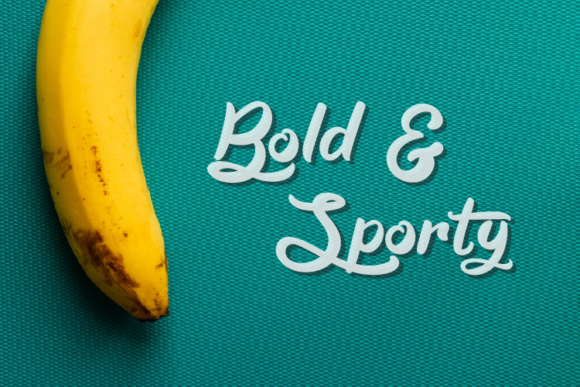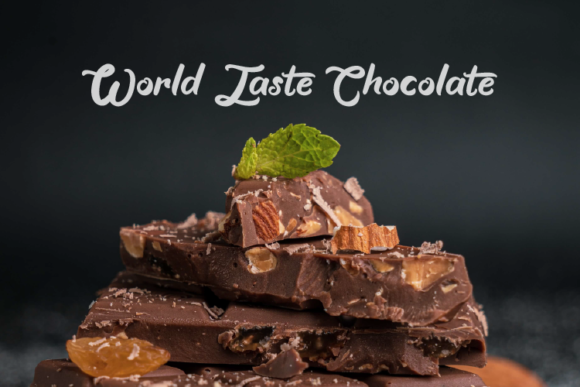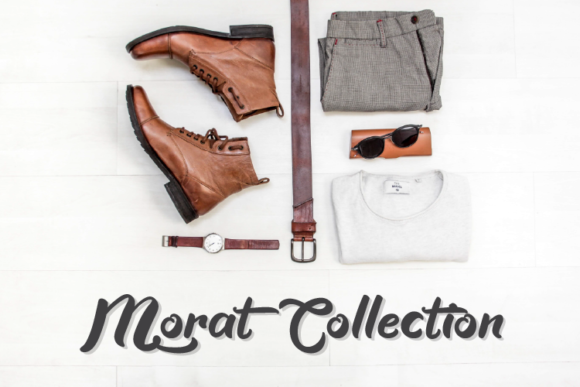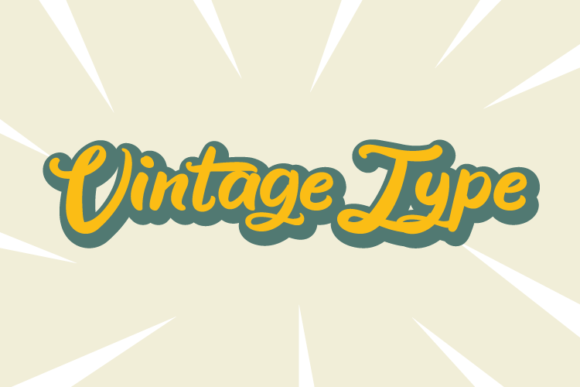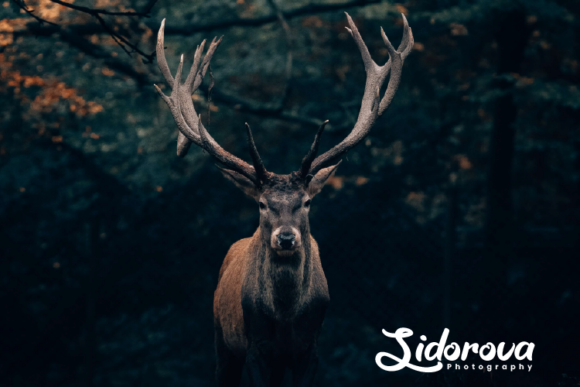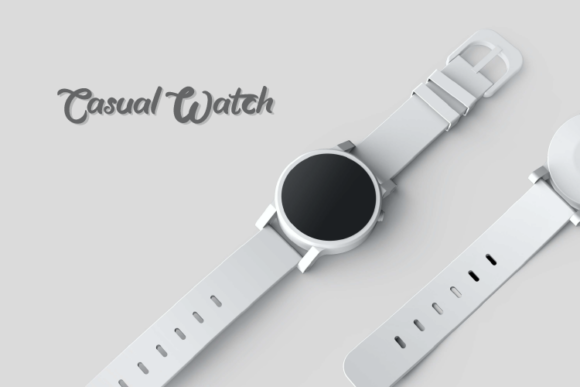
Introduction to Banana Slice Font
Banana Slice is a playful and modern script font.
Banana Slice is perfect for promotion media, quotes and business, amazing font for graphic design artists, a great font for inspirational posters, compatible with any application .
Key Features of Banana Slice Font